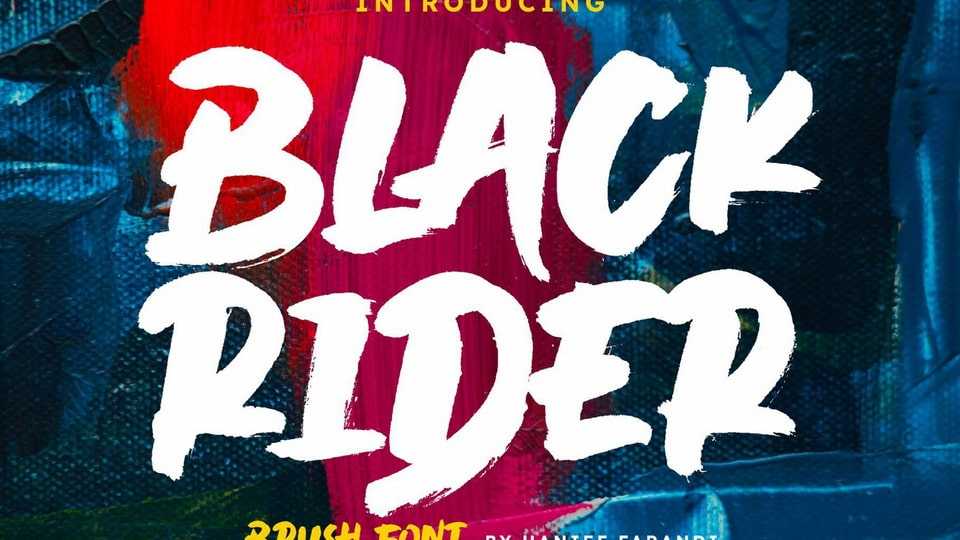
Download Black Rider font, a supercharged street brush typeface full of energy. With extra attention to quick strokes and sharp detail, Black Rider is guaranteed to deliver a very loud and fast message.